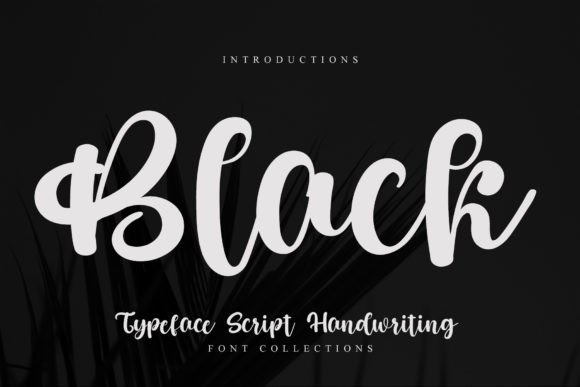
The Elegance of Black Font: A Designer’s Delight
I still remember the time I was working on a project for a client who wanted a elegant and sophisticated look. I had spent hours browsing through font libraries, but nothing seemed to fit the bill. That was when I stumbled upon Black Font, a delicate and elegant handwritten font that stole my heart. Its distinct and well-balanced letters made it a masterpiece, and I knew I had found the perfect fit for my project.
An Honest Review of Black Font
- ✨ Versatility: Black Font is incredibly versatile, making it perfect for a wide range of design projects, from wedding invitations to branding materials.
- ✅ Elegant and Sophisticated: The font’s delicate and elegant style adds a touch of sophistication to any design.
- 💯 Well-Balanced Letters: Each letter is carefully crafted to ensure perfect balance and harmony, making it a joy to work with.
Of course, no font is perfect, and Black Font has a few small quirks:
- 🤔 Limited Contrast: Some users may find that the font lacks contrast between letters, which can make it harder to read in certain contexts.
- ⚠️ Not Suitable for Body Text: Due to its elegant and cursive nature, Black Font may not be the best choice for body text or long paragraphs.
The Story Behind Black Font
Black Font was designed by a talented typographer who wanted to create a font that was both elegant and versatile. Inspired by classic calligraphy, the font’s creator aimed to craft a font that would be perfect for a wide range of design projects. With its delicate and well-balanced letters, Black Font has become a favorite among designers and crafters.
| Font Name | Black Font |
| What is Black Font? | Black Font is a delicate and elegant handwritten font perfect for a wide range of design projects. |
| Is Black Font suitable for body text? | No, Black Font is best used for headings, titles, and short paragraphs due to its elegant and cursive nature. |
| Is Black Font available in different weights? | Currently, Black Font is available in a single weight, but its versatility and elegance make it perfect for a wide range of design projects. |